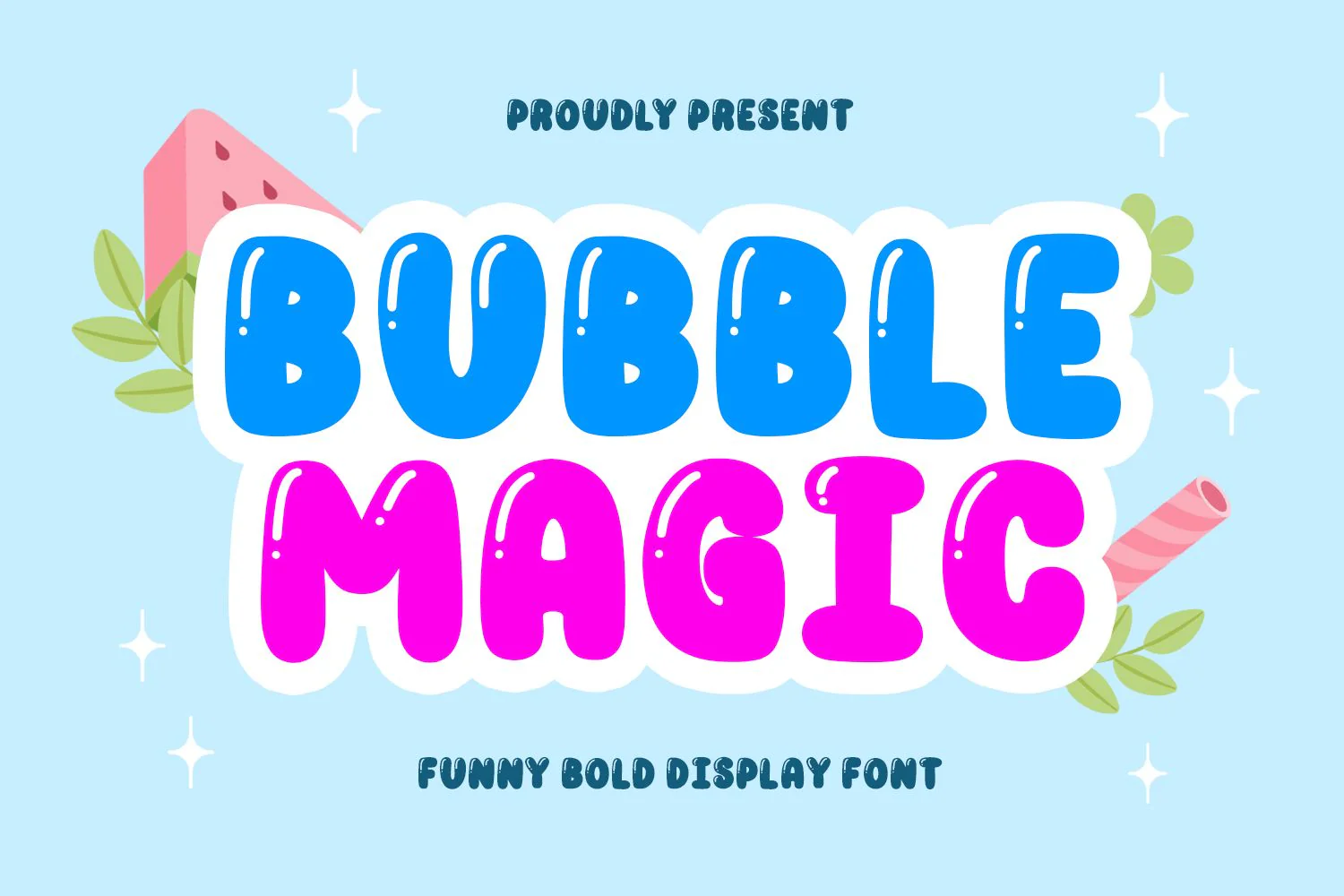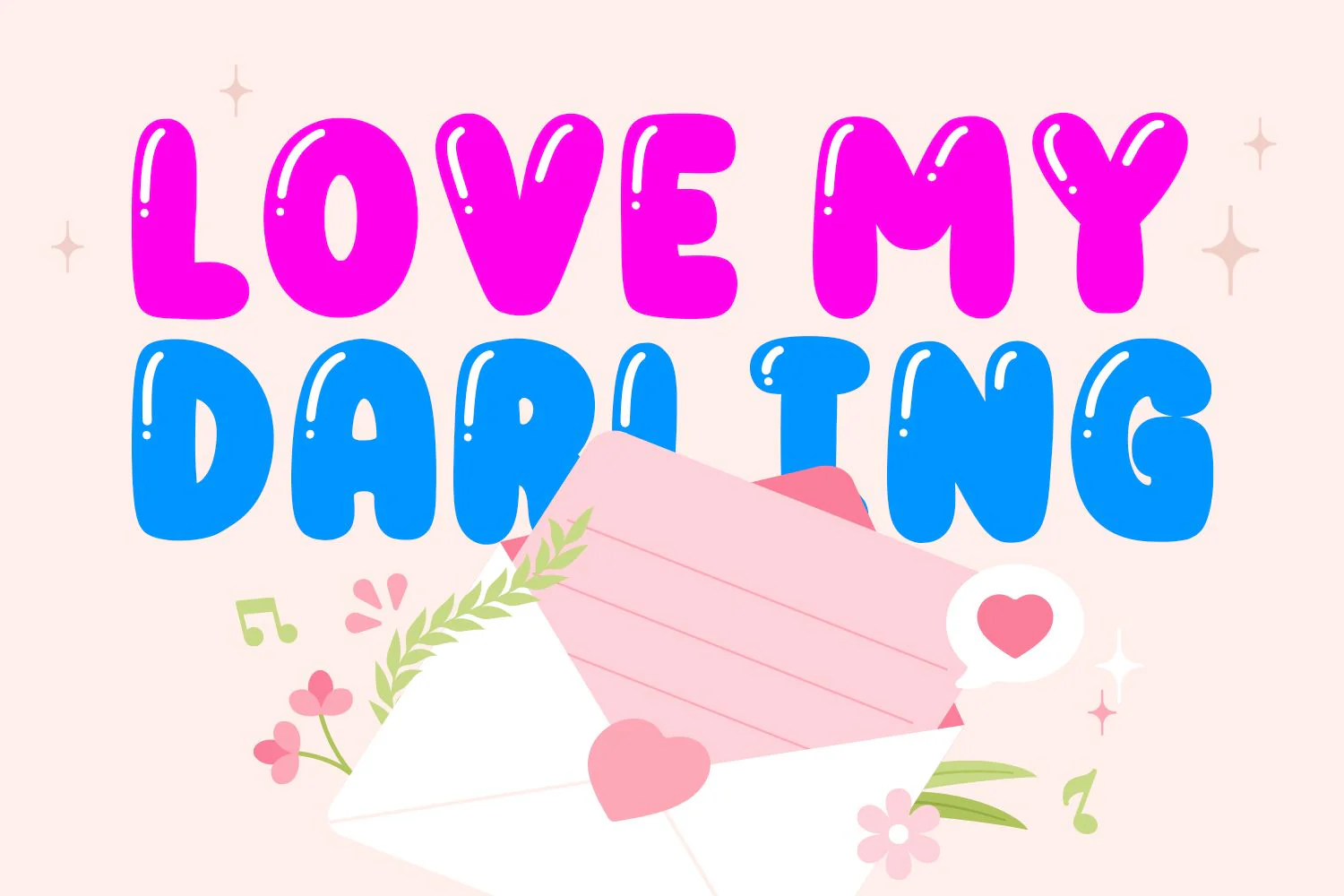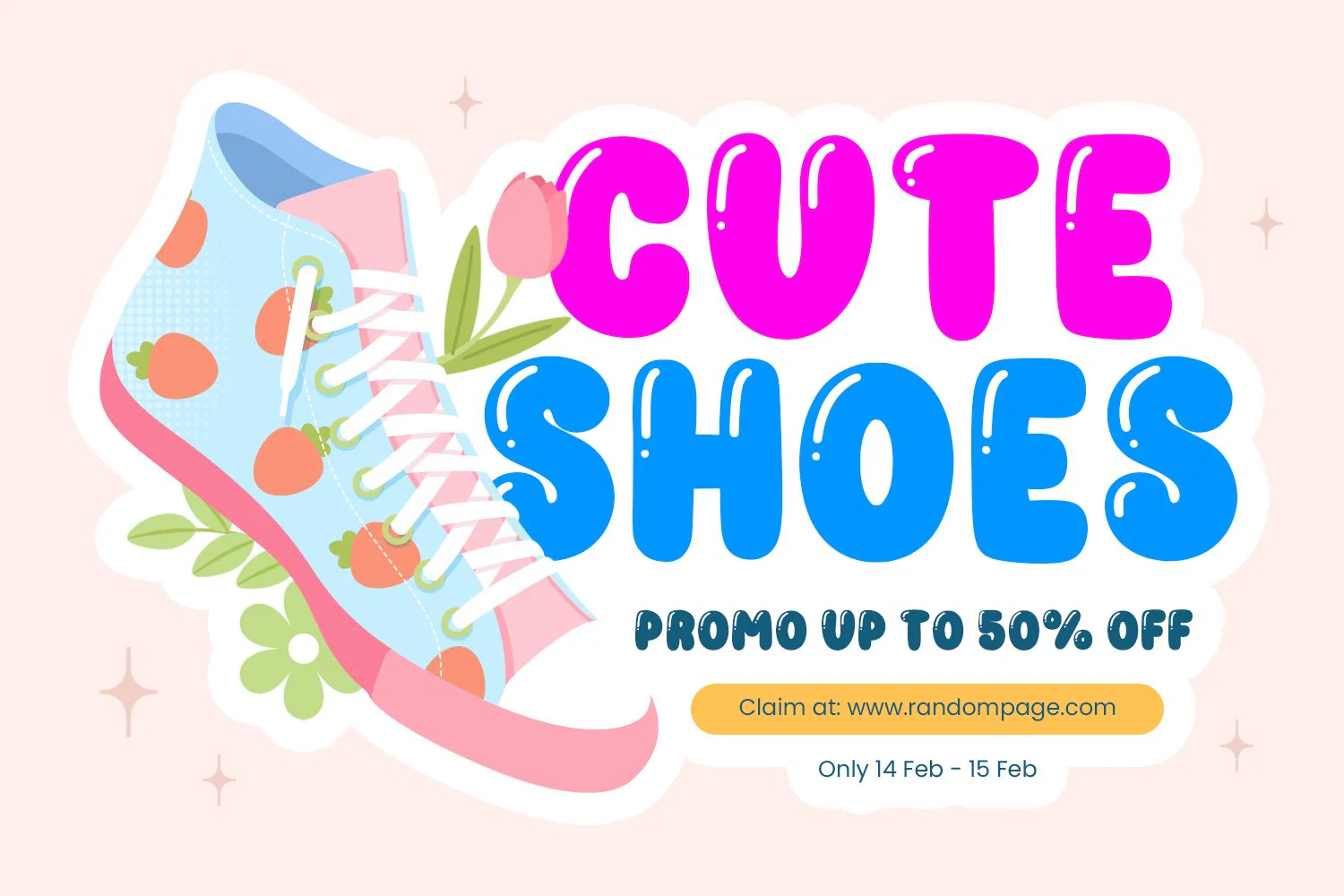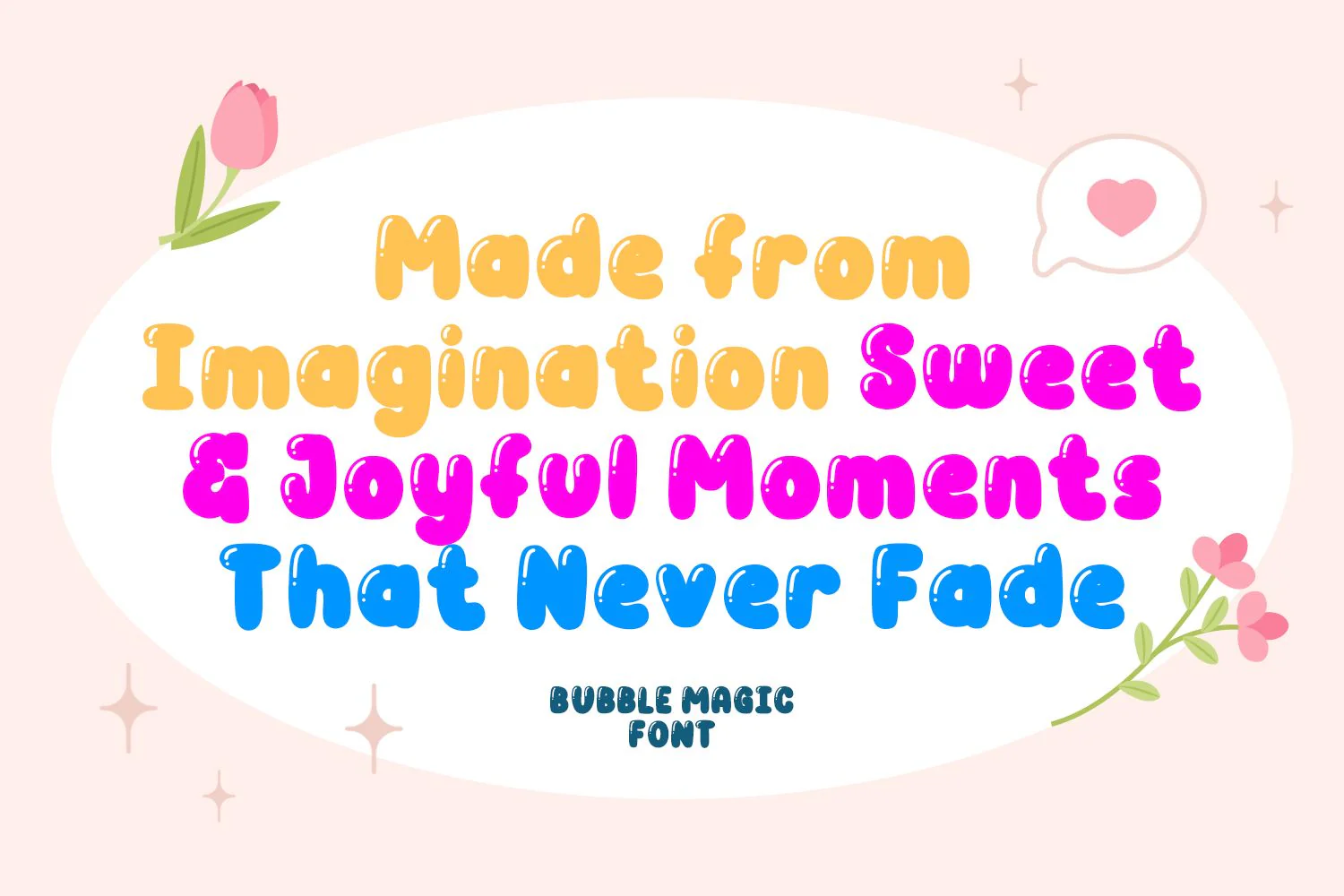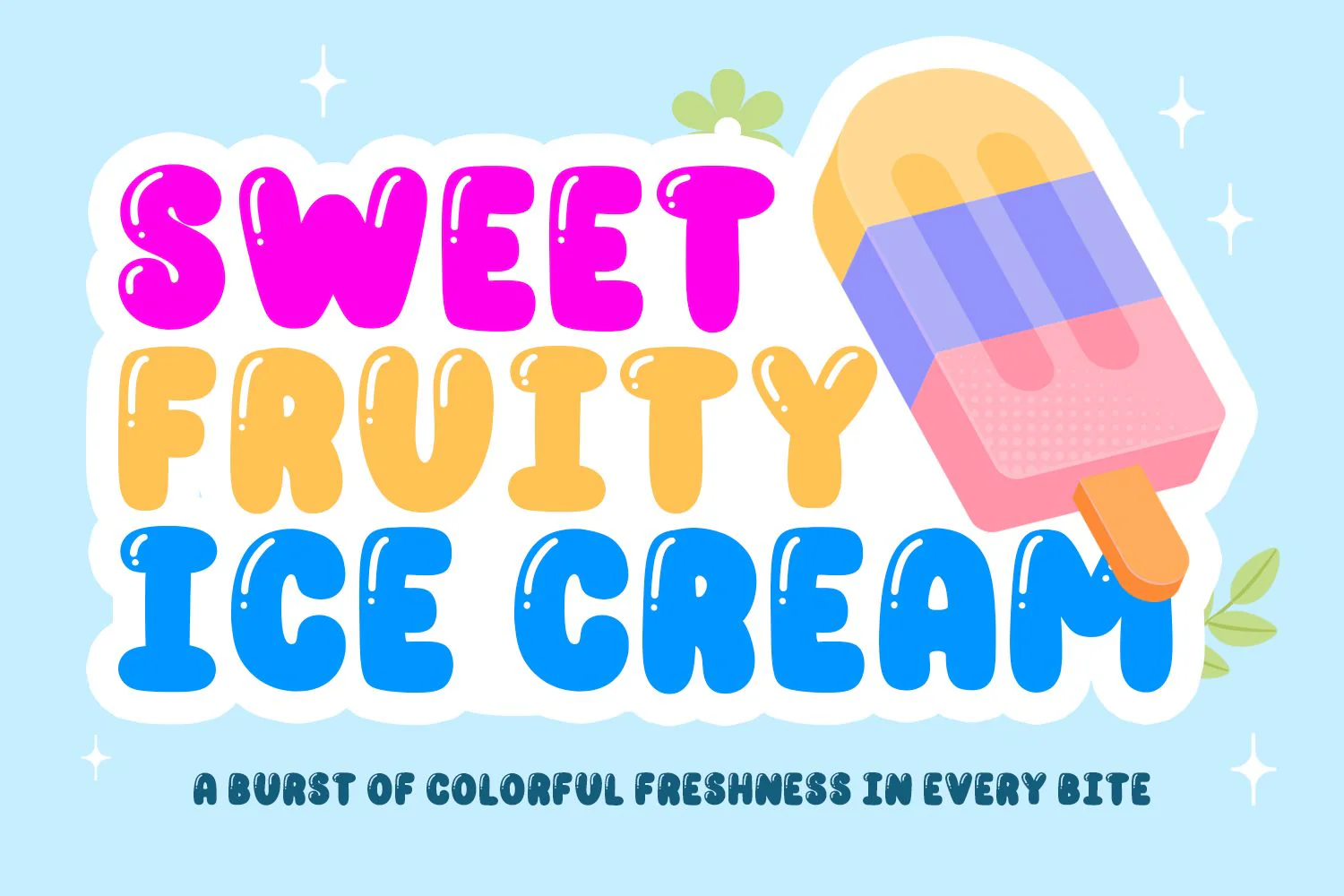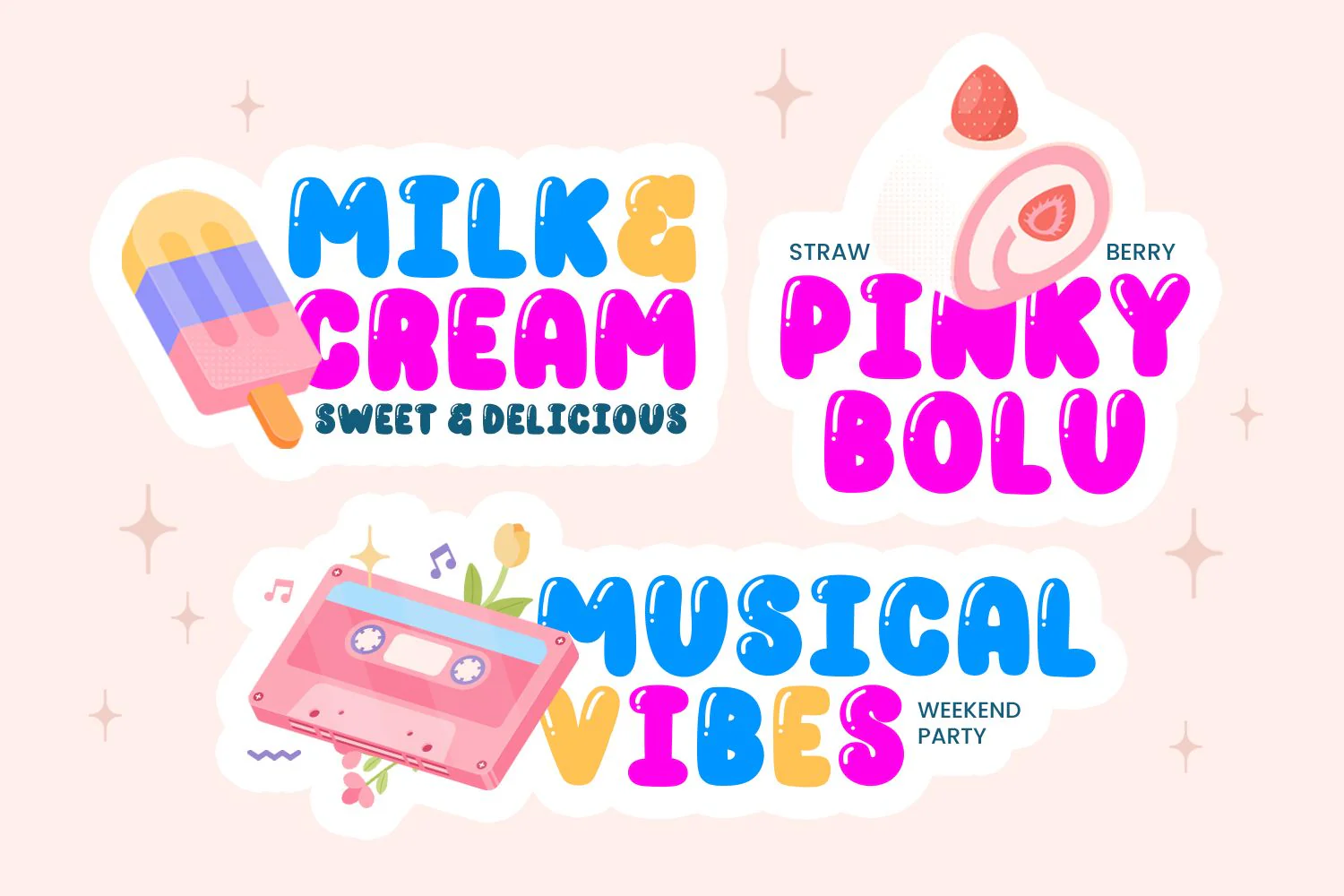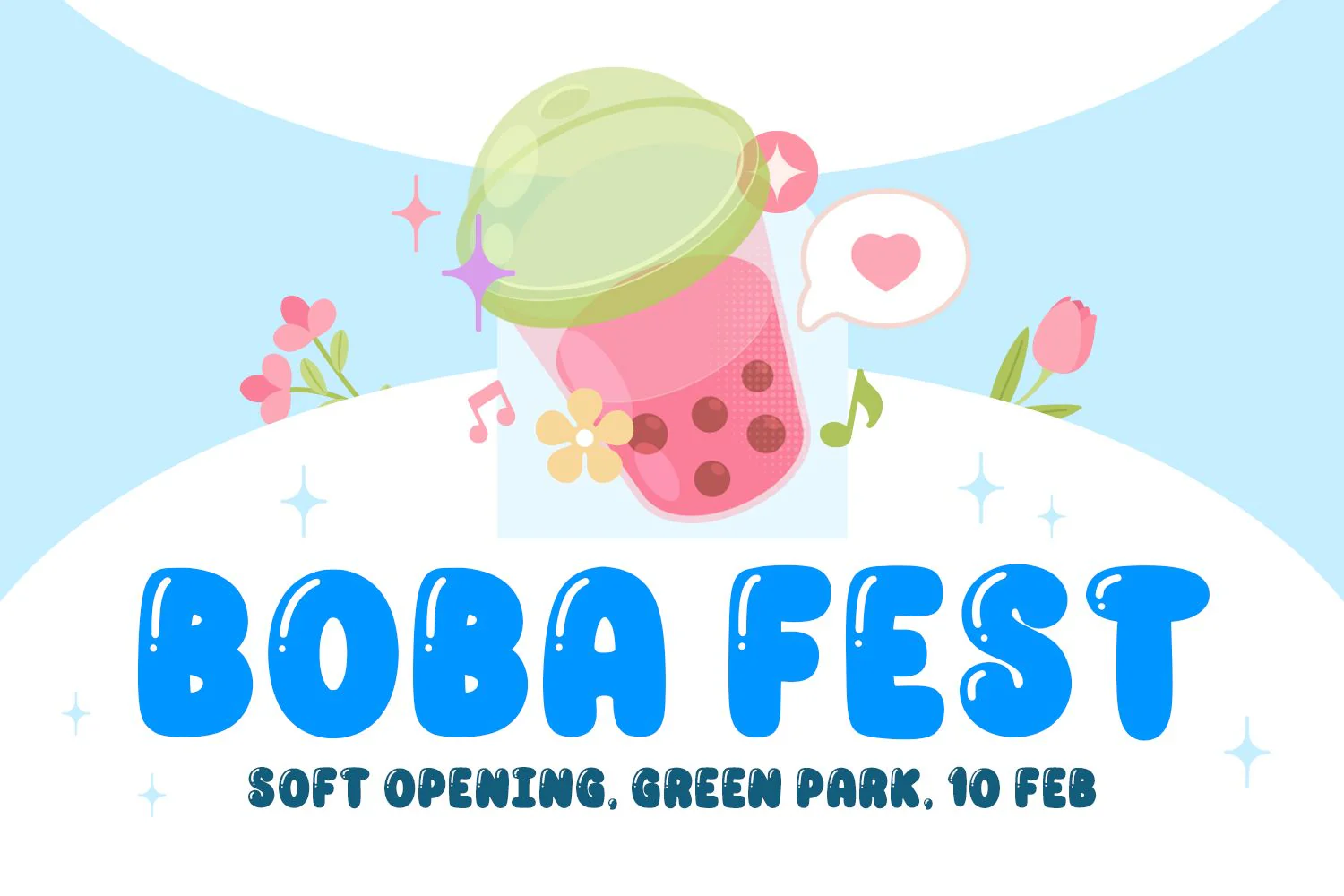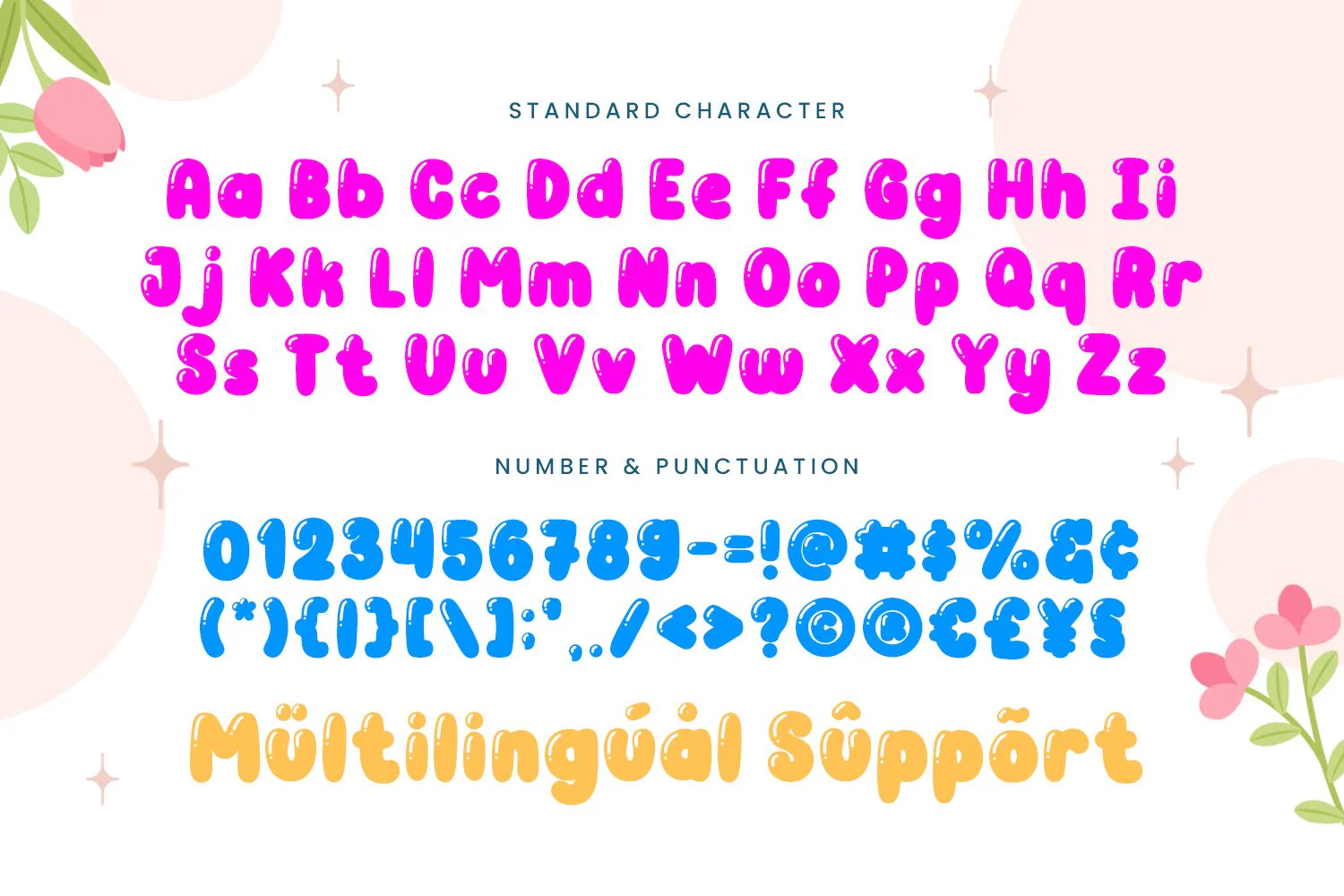
Bubble Magic - Bubble Font
Bubble Magic is a joyful display font with a soft, bubbly shape that brings a sense of fun and imagination to every design. Its rounded letters and playful curves create a magical look that feels friendly, cute, and full of positive energy. This font is perfect for designs that want to appear cheerful, lighthearted, and eye-catching.
Created with childrenās themes in mind, Bubble Magic is ideal for kids projects, birthday invitations, party decorations, and Easter designs. The bubbly style makes every word feel lively and happy, helping your designs instantly connect with young audiences and family-friendly themes.
Bubble Magic is also a great choice for creative crafting projects such as Cricut designs, embroidery, and handmade items. The font works smoothly for SVG files, decals, stickers, and custom gifts, making it easy to use across both digital and physical creations while keeping excellent readability.
For seasonal and lifestyle designs, Bubble Magic fits perfectly with summer, spring, autumn, and Thanksgiving themes. Whether used for playful lettering, home dƩcor, or craft projects, this font adds a warm and magical touch that enhances any creative idea.